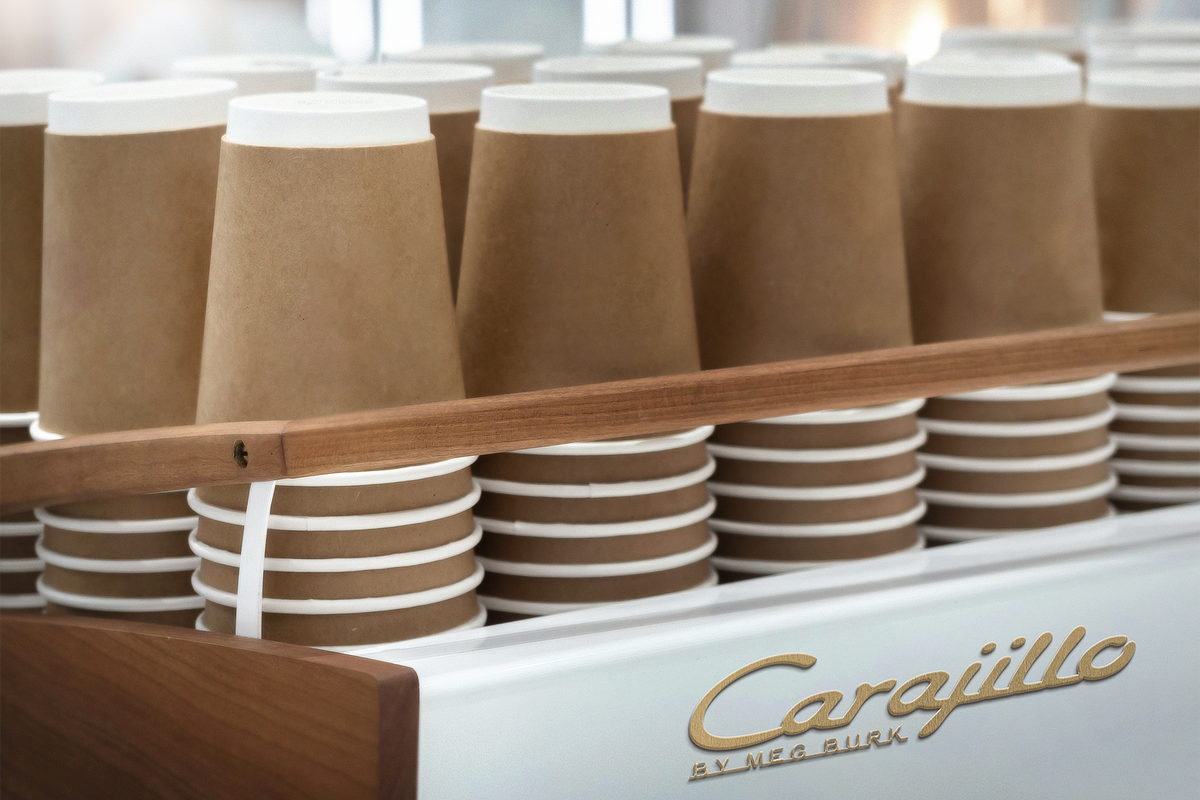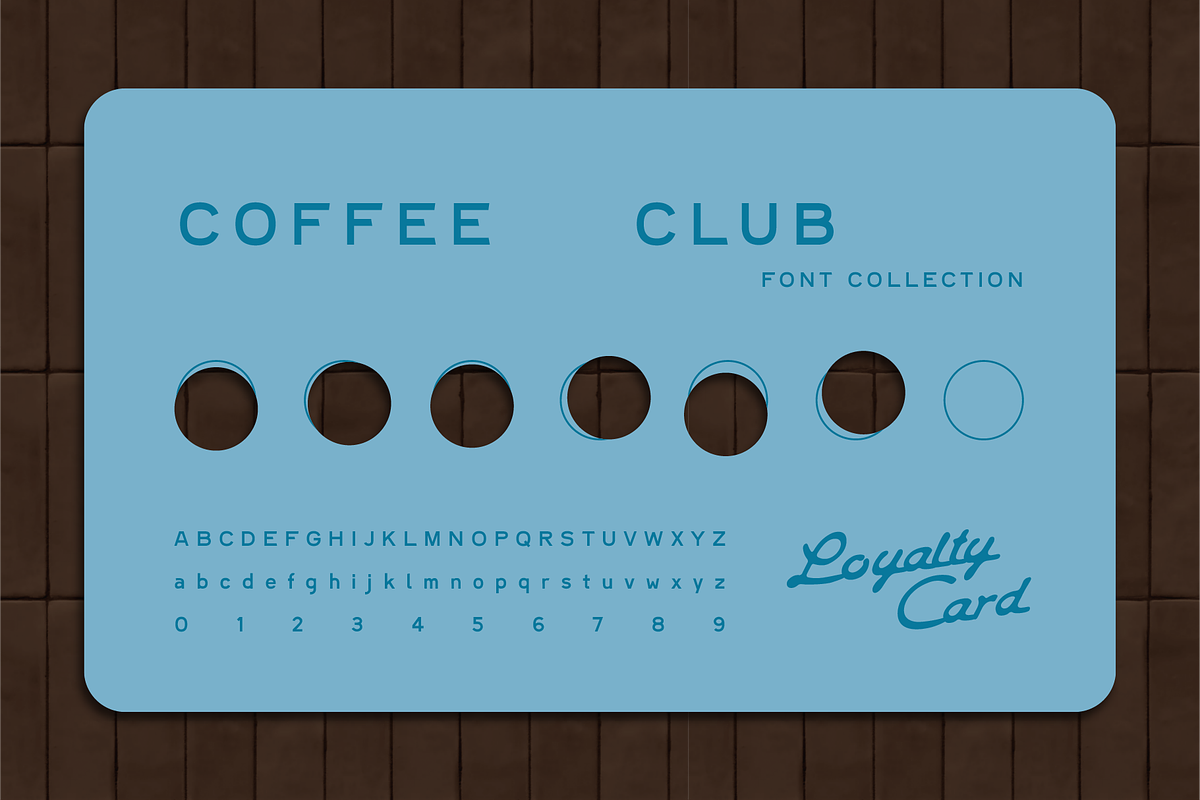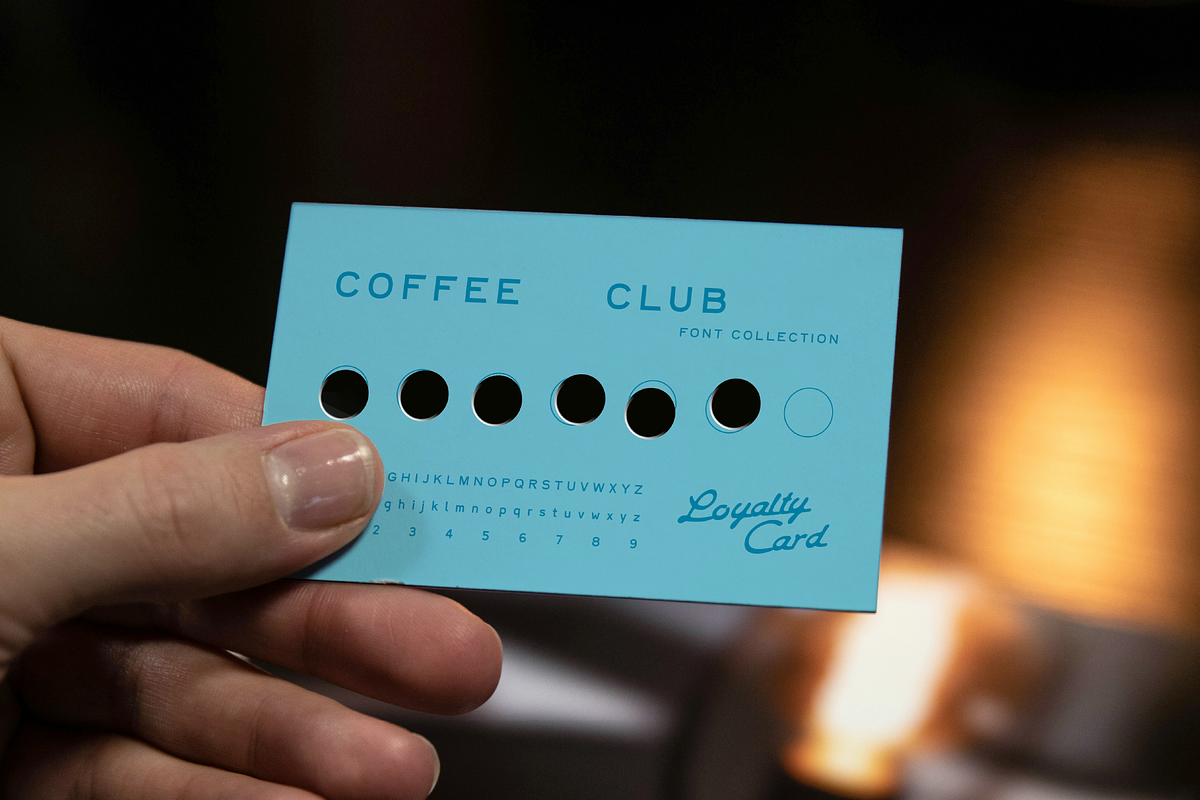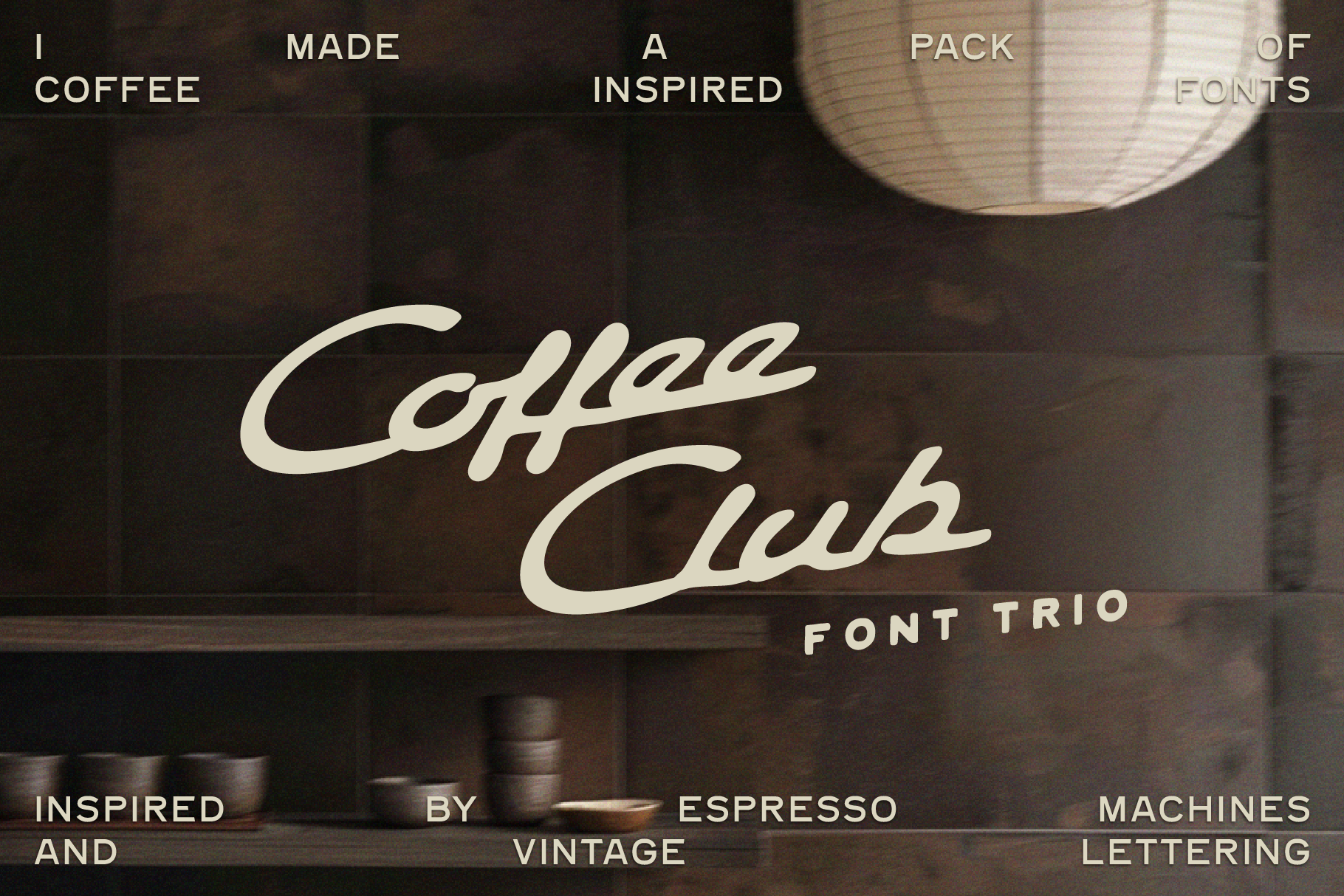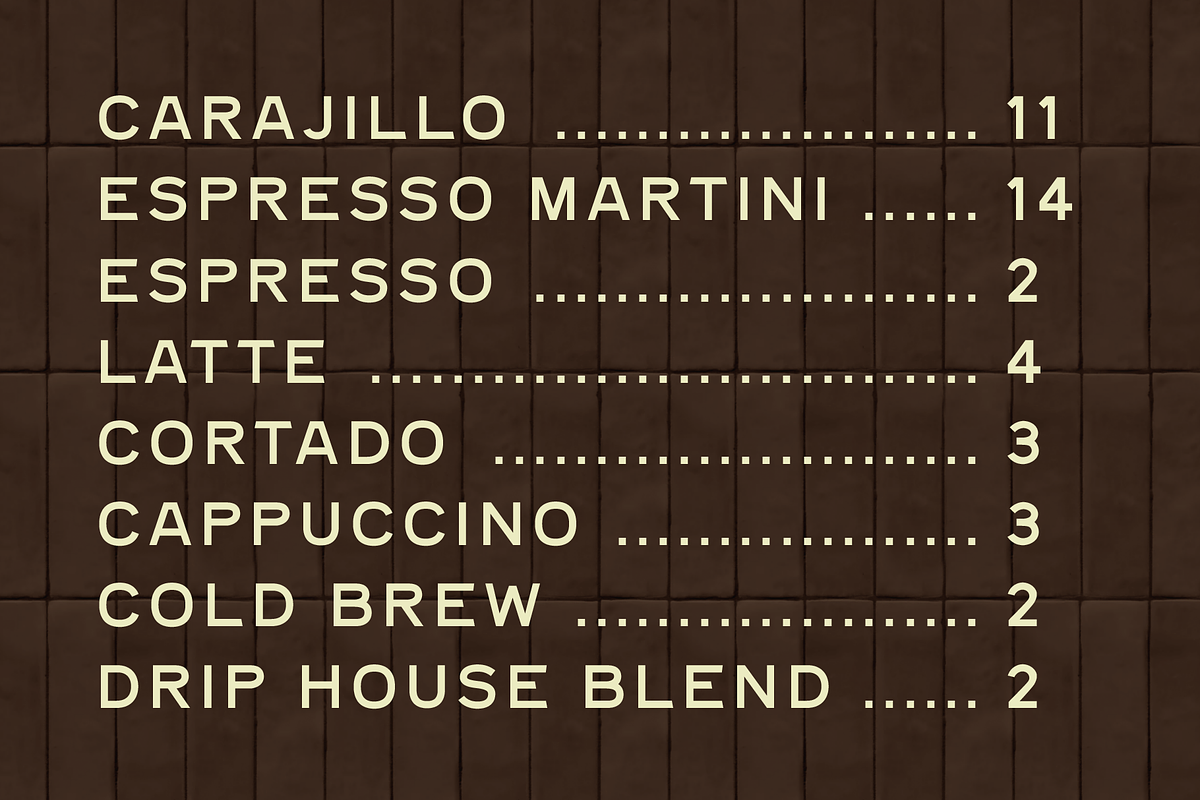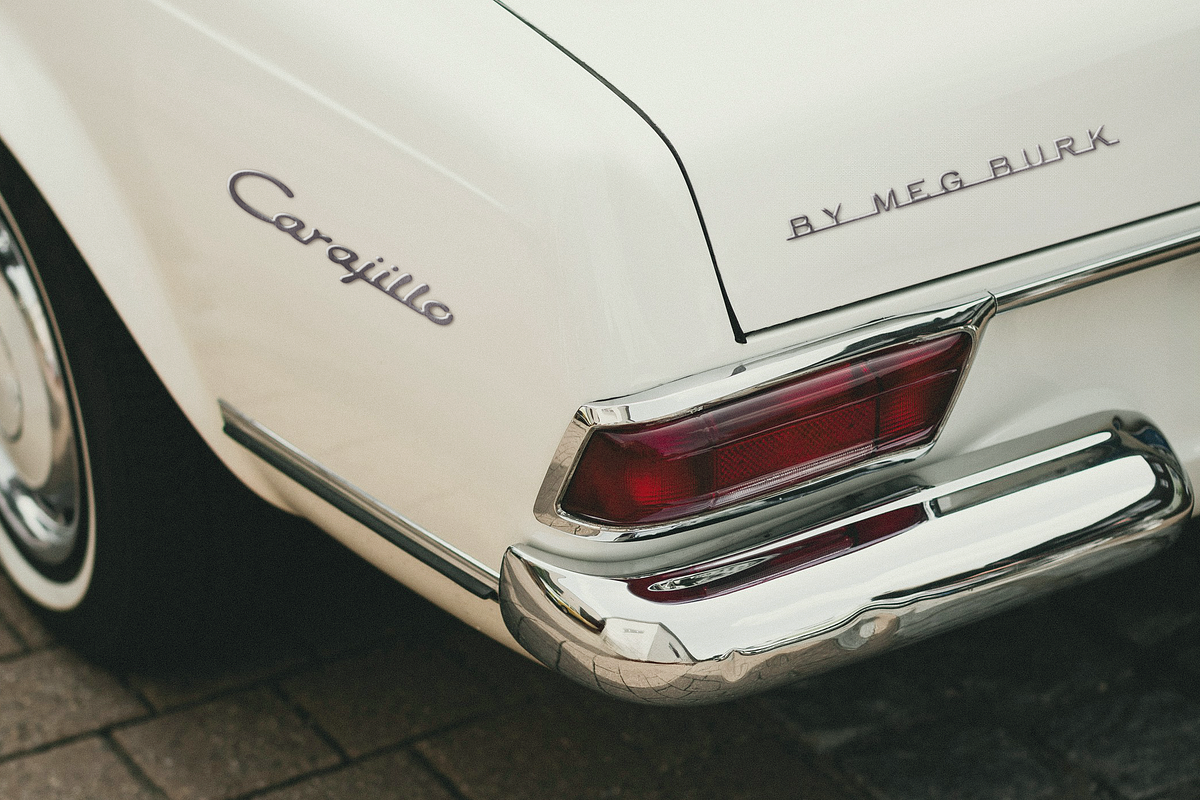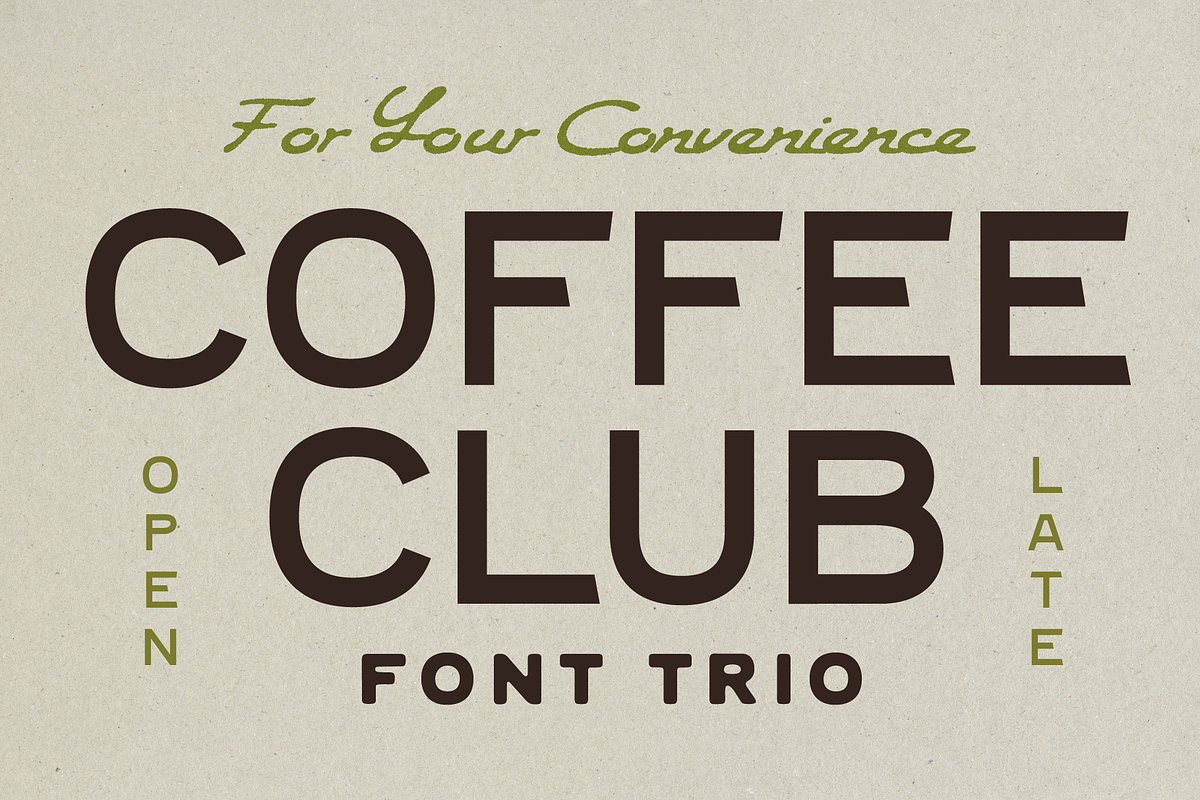
Carajillo Font Collection
Welcome in to my Coffee Club! 〰️ I'm happy to see you : ) What's your go-to coffee order?
This pack of fonts was inspired by the metal nameplates on espresso machines. I know you also love trying a new cafe - do you find yourself noticing the machines and the emblems on them? They're all different. I noticed a La Marzocco emblem in a style I had never seen before and it hit me - WOW I love these vintage logos.
Soon I was noticing the emblems everywhere. At Central Market: a Porsche Boxter. Woweee what a pretty script.
Well here we are. My interpretation of those references. I hope you find this vintage inspired script super enjoyable.
Carajillo - Vintage Script
Cappuccino - Sans Serif (5 variations)
Cowboy - Hand Sans
It comes with a super structured sans serif, Cappuccino which has a lot of variations on it because I got carried away. More vintage - inspired fun.
I find Cappuccino and its variants perfect for menu boards, leaving Carajillo to be the main character.
-Who it’s for Anyone designing for a brand that wants to stand firmly in a vintage vibe but also so clearly present in the moment.